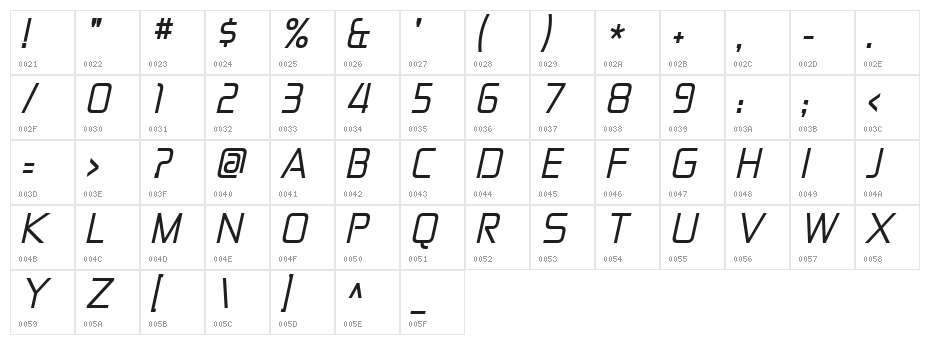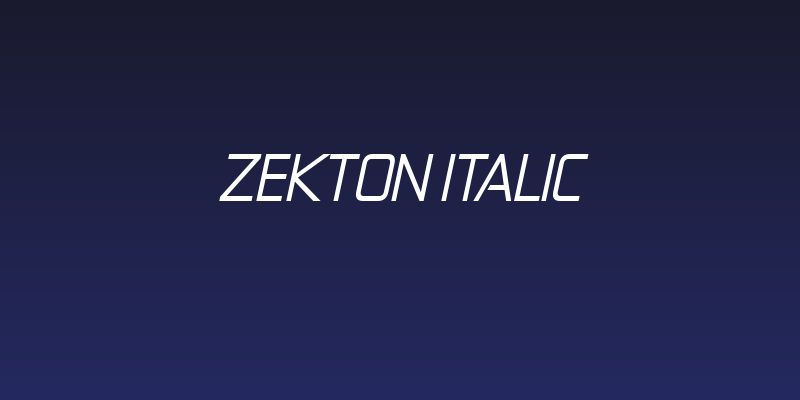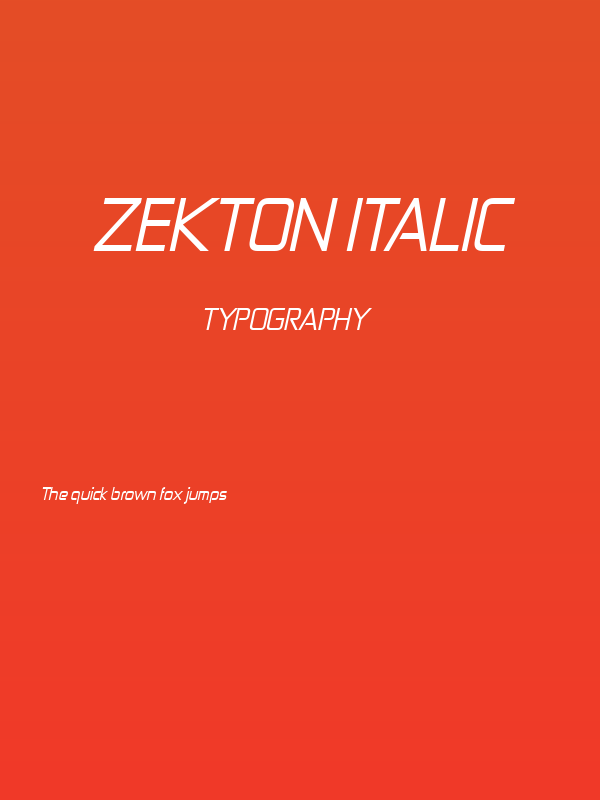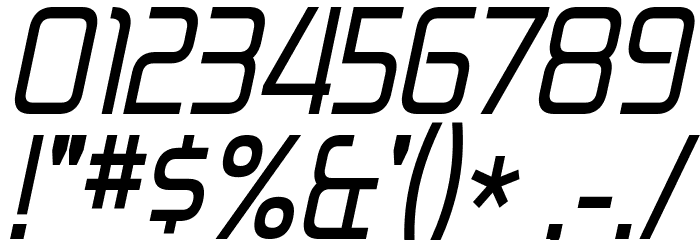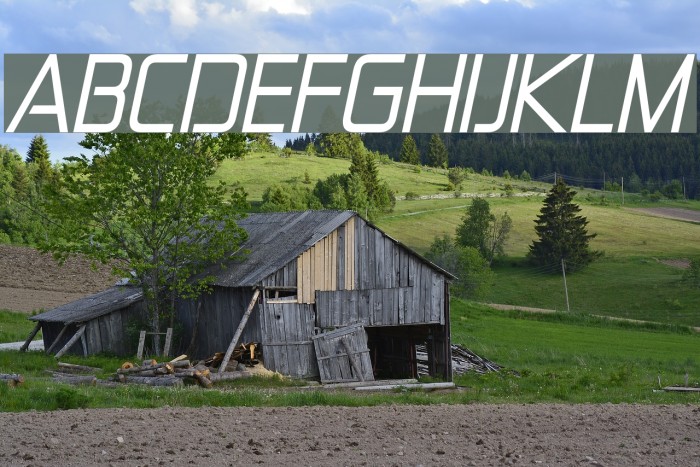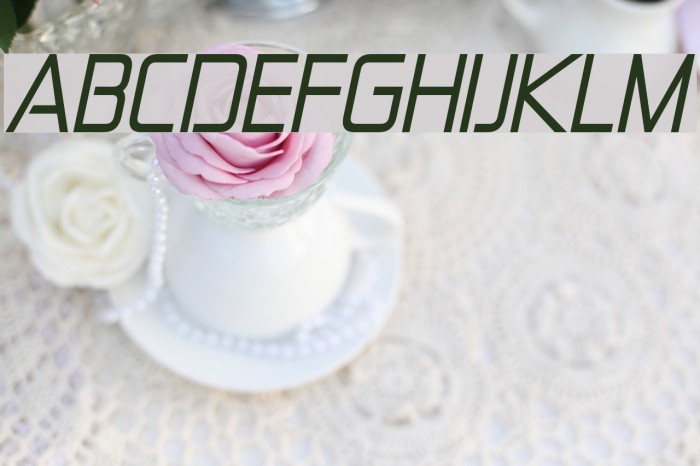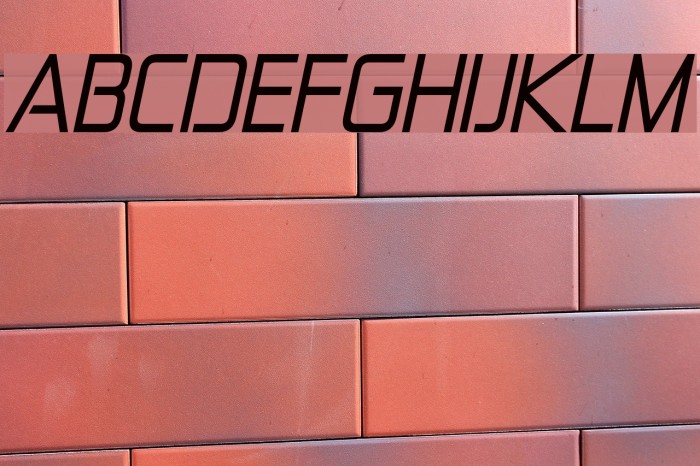
Zekton Italic Font
Zekton Italic Description
This font features a sleek, modern design with a distinct italic slant, giving it a dynamic and forward-moving appearance. The characters are slightly condensed, enhancing its streamlined look. The strokes are consistent in weight, providing a uniform and balanced aesthetic. The uppercase letters are tall and commanding, while the lowercase letters maintain a harmonious flow. The numerals are clear and legible, making them suitable for various applications. Special characters are well-integrated, maintaining the overall style. This font is ideal for projects that require a contemporary and energetic feel.
| Categories | Futuristic |
| Width | Condensed |
| Use Case | Headlines, Logos, Advertising |
| Proposed Projects | Ideal for technology branding, sports team logos, modern advertising, and dynamic web design. |